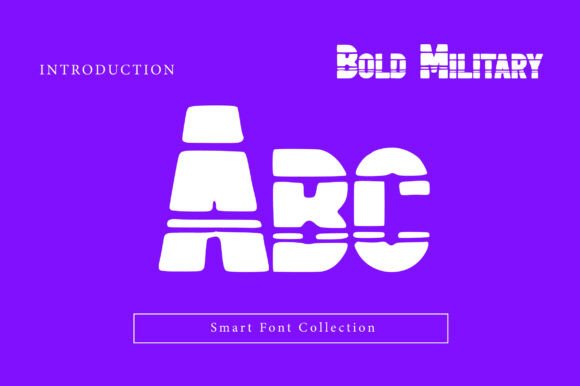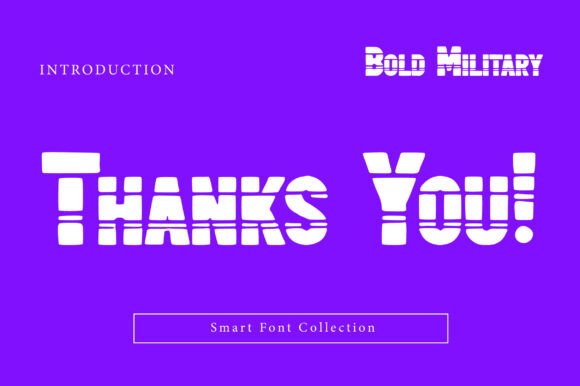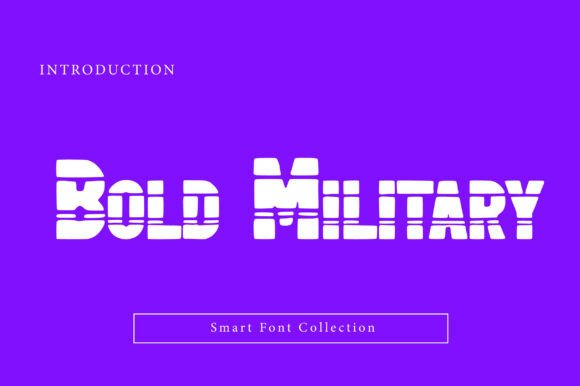
Introducing Bold Military Font: The Ultimate Display Typeface for Strength and Authority
In the world of typography, few fonts convey the sense of power, discipline, and reliability as effectively as the Bold Military font. Inspired by military stencils and army-style typography, this strong, tough, and authoritative display typeface is perfect for designs that require a bold and serious tone with a tactical or industrial feel.
The Bold Military font features thick, bold strokes with a solid structure that exude confidence and ruggedness. Its commanding appearance makes it an ideal choice for a wide range of design projects, from military-themed designs and logos to posters, badges, uniforms, games, action titles, sports branding, and powerful headlines.
One of the key characteristics of the Bold Military font is its ability to deliver a confident, rugged, and professional look that stands out in both digital and print projects. Whether you’re looking to create a bold statement or add a touch of industrial chic to your design, this font is sure to impress.
Versatility and Applications
The Bold Military font is incredibly versatile and can be used in a variety of design applications. Here are some of the ways you can use this font to elevate your designs:
- Military-themed designs: The Bold Military font is perfect for creating military-themed designs, such as logos, posters, and badges. Its bold and authoritative appearance makes it an ideal choice for designs that require a sense of strength and discipline.
- Sports branding: The font’s rugged and confident appearance makes it an excellent choice for sports branding, particularly for teams and organizations that require a bold and dynamic look.
- Streetwear: The Bold Military font’s industrial and tactical feel makes it a great fit for streetwear designs, such as t-shirt graphics and logos.
- Action titles: The font’s bold and commanding appearance makes it perfect for action titles, such as movie and game titles that require a sense of excitement and energy.
- Powerful headlines: The Bold Military font is also great for creating powerful headlines that require a sense of authority and confidence.
Design Tips and Pairing Suggestions
To get the most out of the Bold Military font, here are some design tips and pairing suggestions:
- Pair with metallic textures: The Bold Military font pairs exceptionally well with metallic textures, such as gold, silver, and copper. This combination adds a touch of luxury and sophistication to your design.
- Combine with camouflage patterns: The font’s tactical and industrial feel makes it a great fit for camouflage patterns. This combination creates a bold and eye-catching design that’s perfect for military-themed designs and streetwear.
- Use in tech-focused marketing: The Bold Military font’s “heavy-duty” feel makes it perfect for tech-focused marketing designs, such as software and gadget promotions.
- Standout headlines: Use the Bold Military font as a standout headline on a music festival poster or any other design that requires a bold and attention-grabbing title.
The Bold Military font is a powerful and versatile display typeface that’s perfect for designers and crafters looking to add a touch of strength and authority to their designs. Its bold and commanding appearance makes it an ideal choice for a wide range of design applications, from military-themed designs and sports branding to streetwear and powerful headlines.
With its ability to deliver a confident, rugged, and professional look, the Bold Military font is sure to elevate your designs and give them a bold and serious tone with a tactical or industrial feel. So why settle for a ordinary font when you can make a bold statement with the Bold Military font?
Whether you’re a designer, crafter, or simply someone looking to create a bold and eye-catching design, the Bold Military font is an excellent choice. Its versatility, strength, and authority make it the ultimate display typeface for any design project that requires a sense of power and confidence.